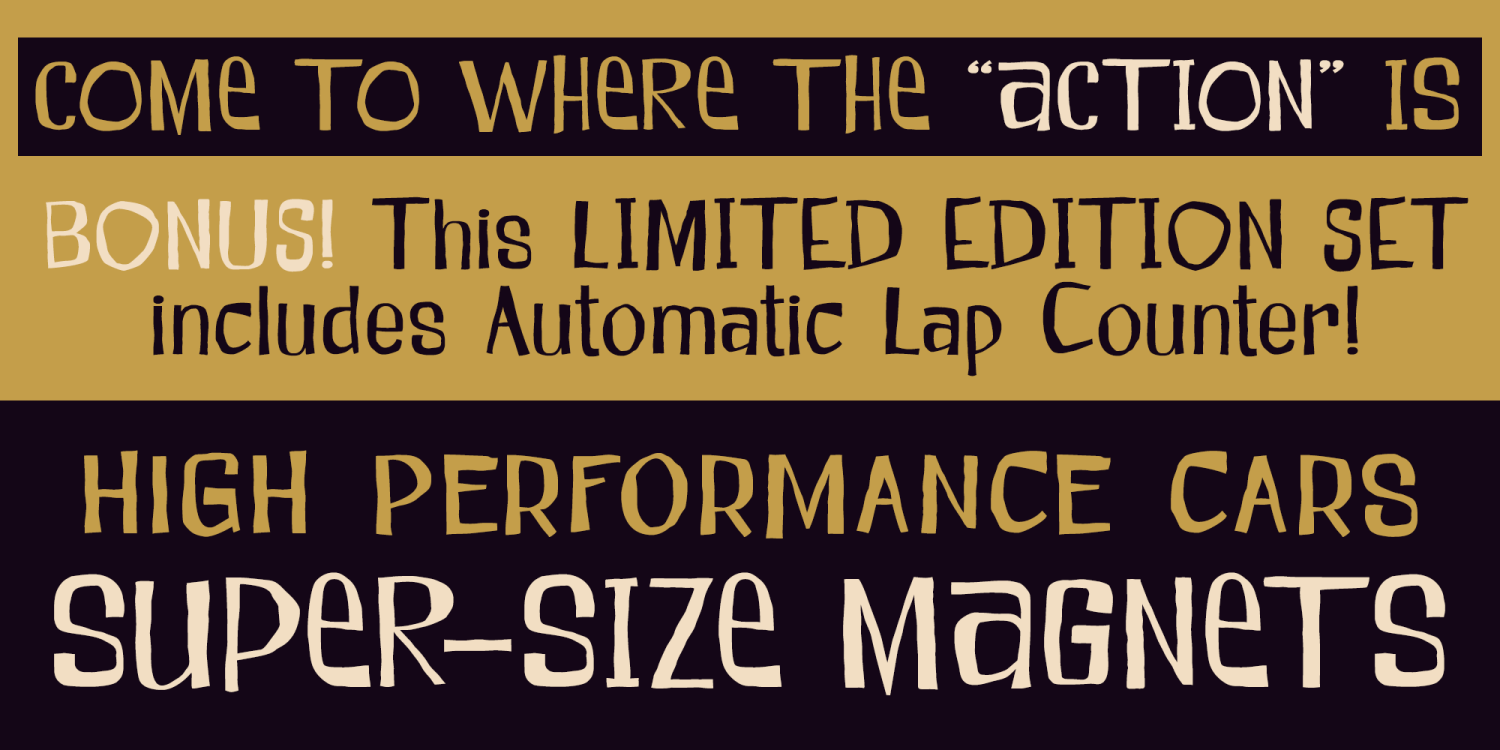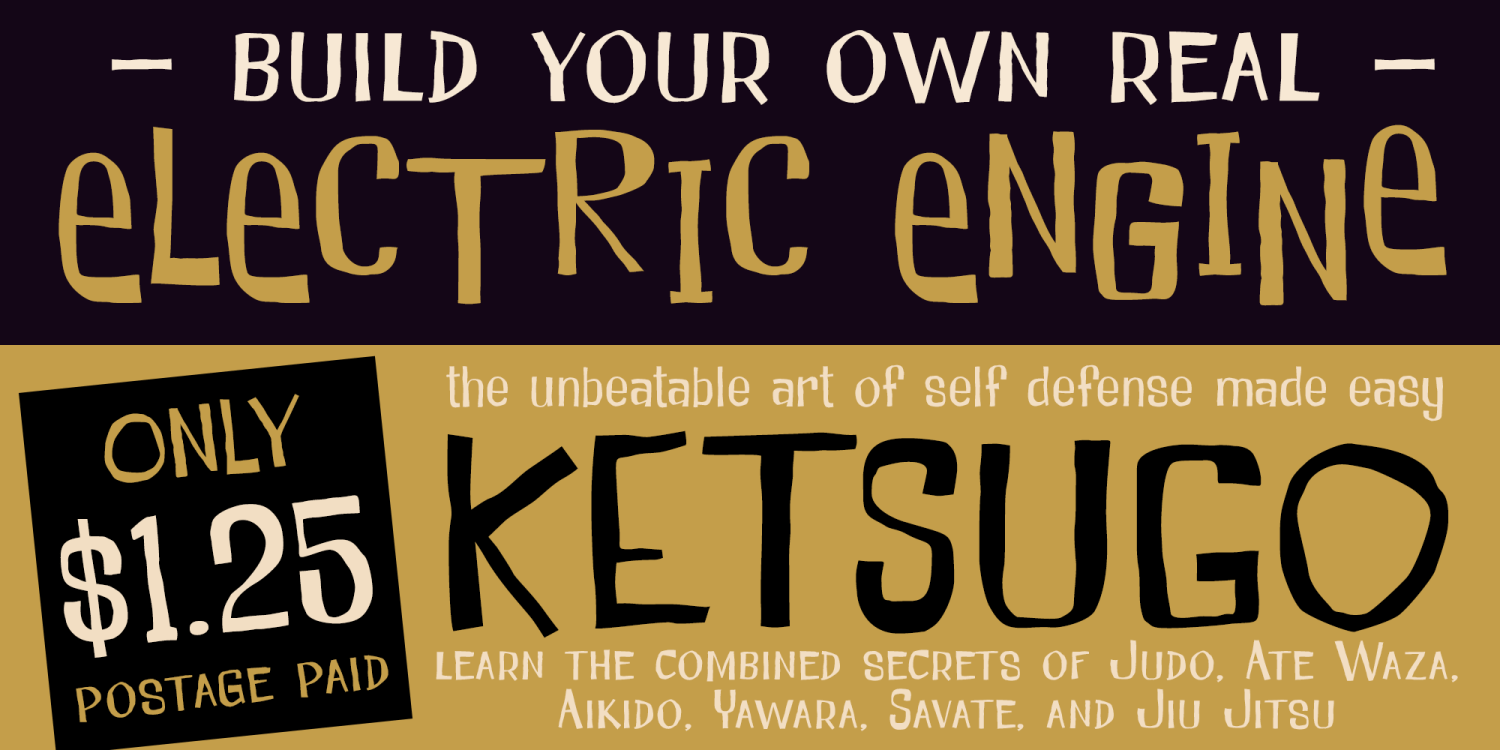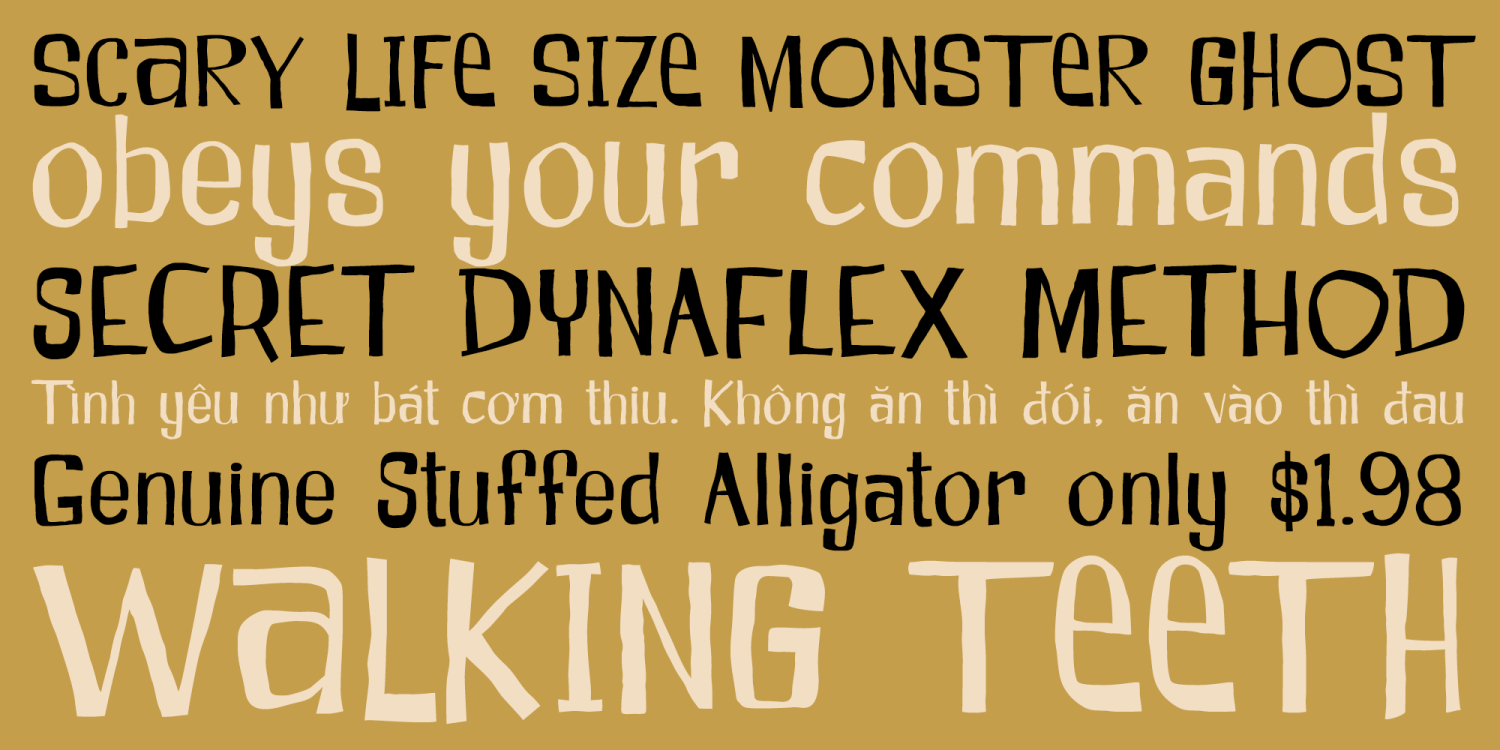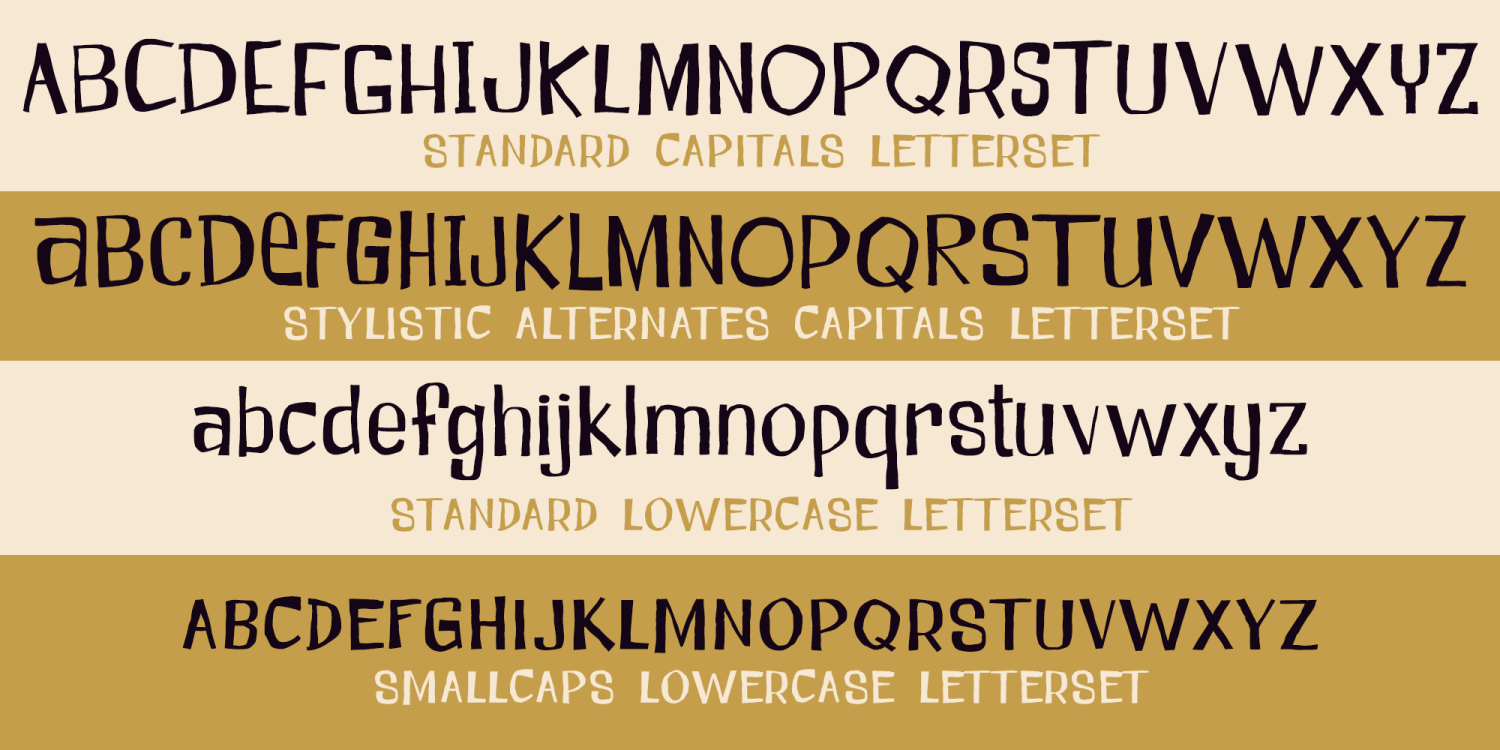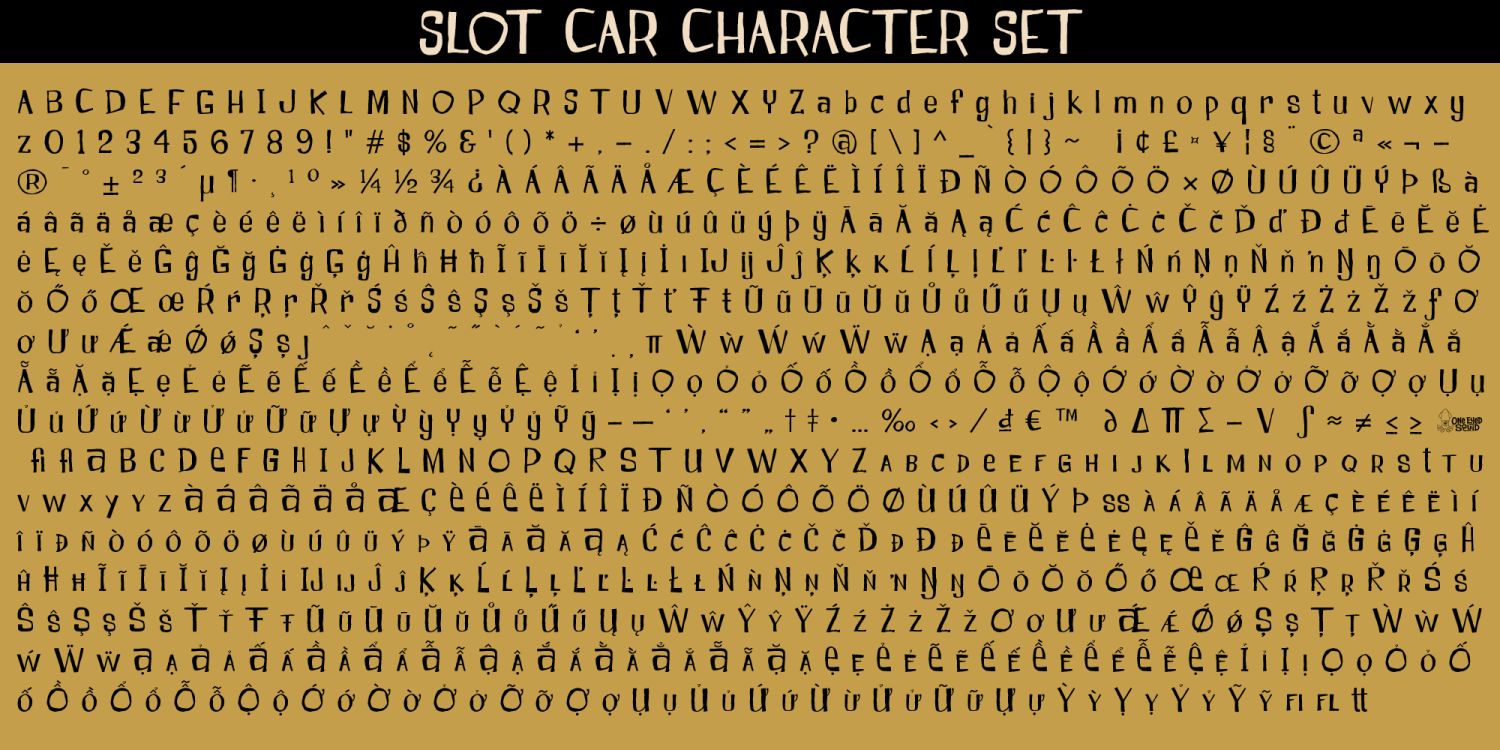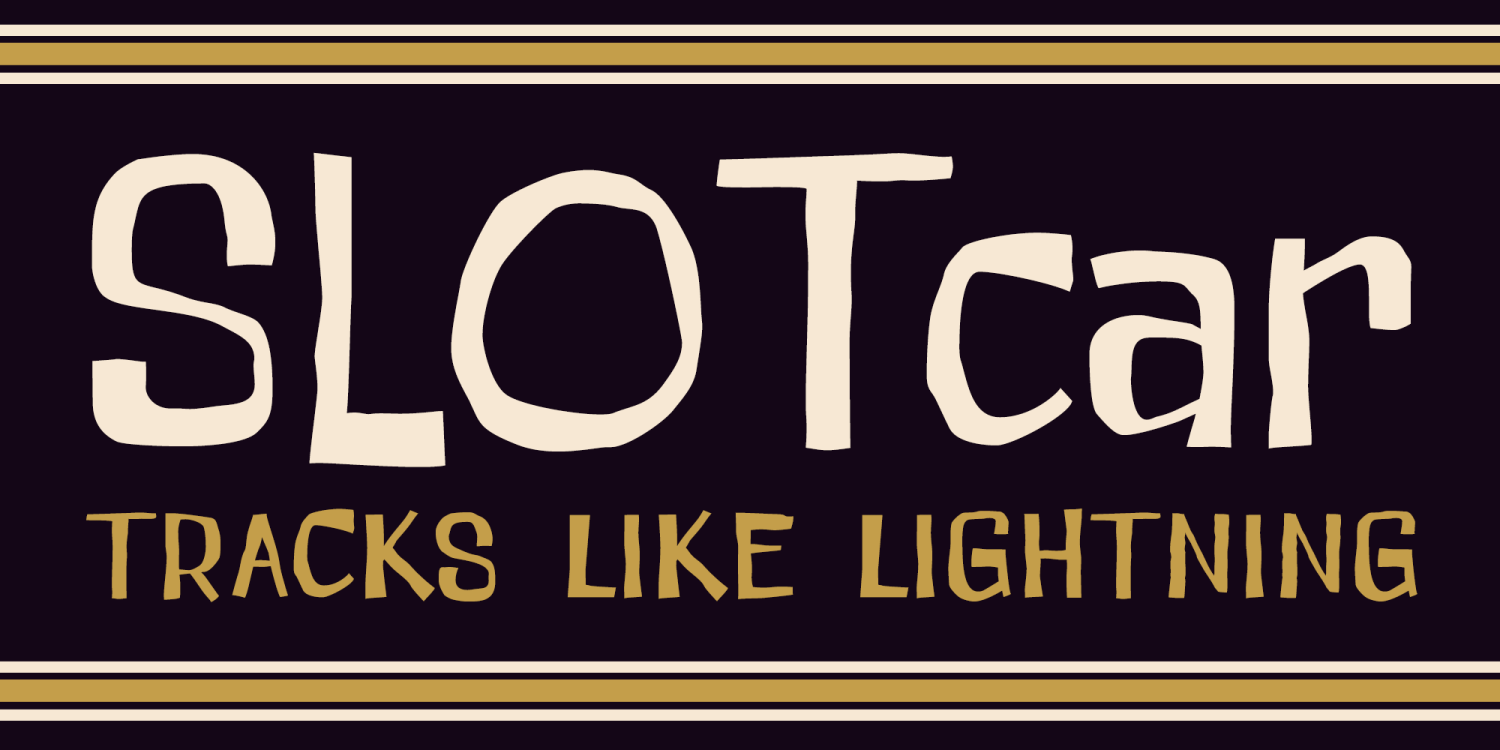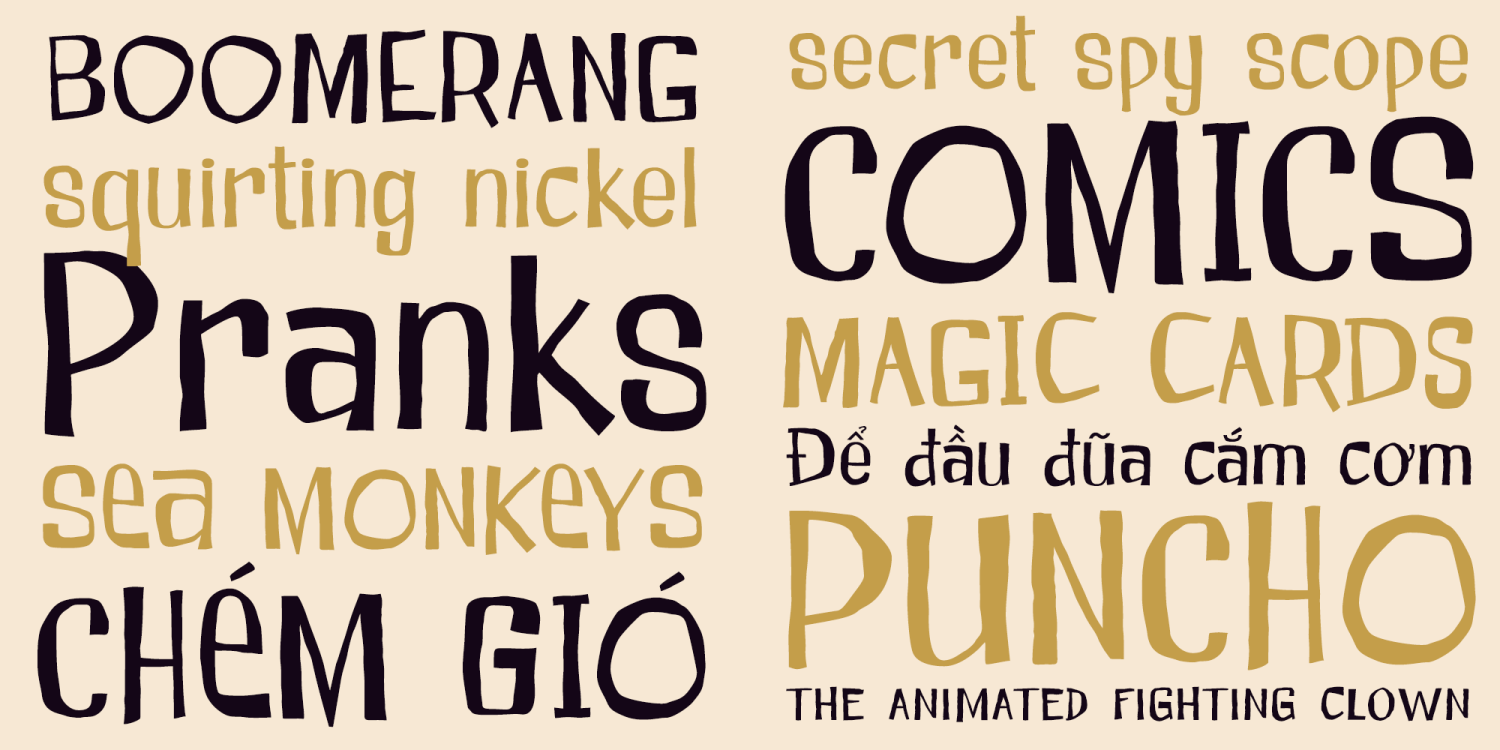
Slot Car Regular
About Slot Car Regular
This rowdy, handdrawn retro font really tracks! Slot Car will sling you around the curve at lightning speed and propel your design project across the finish line in record time! Feel the electricity with Slot Car! (Slot Car contains an extended Latin…